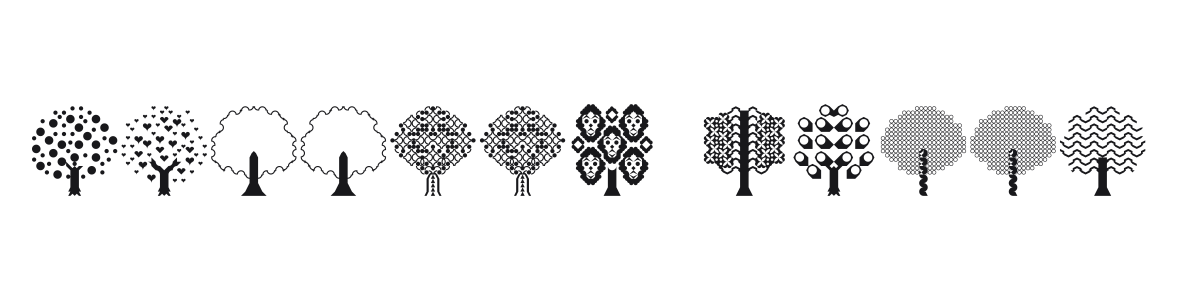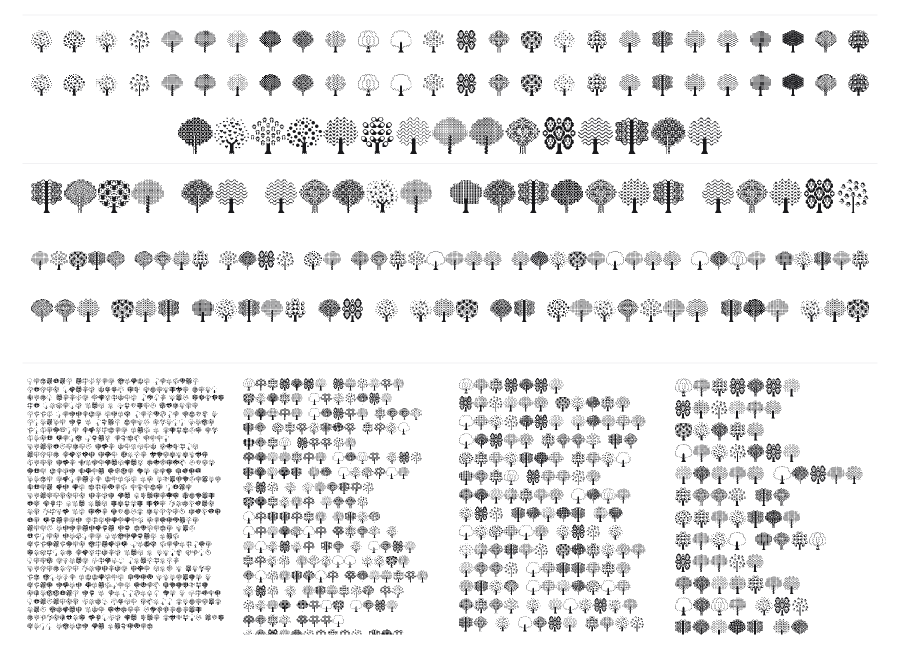
Balloon Trees
by LordFonts
Balloon Trees is a dingbat font of stylized tree illustrations, each one a distinct variation built on the same trunk-and-canopy silhouette. The collection spans hearts, zigzags, circles, dots, lattice patterns, and more, all assembled from a pixel grid that gives the set a consistent handcrafted texture. Useful for nature-themed ornaments, borders, children's materials, and any project that needs a little greenery.